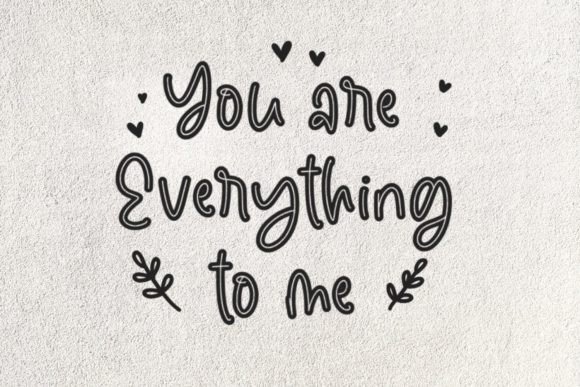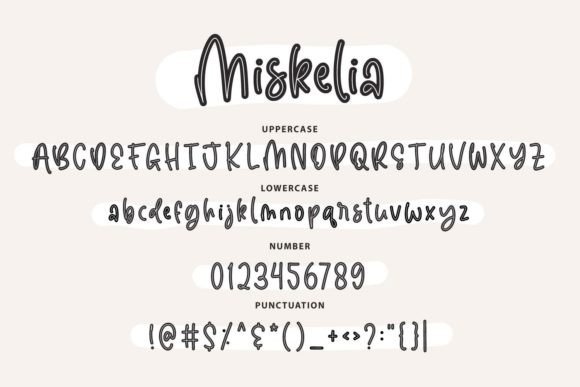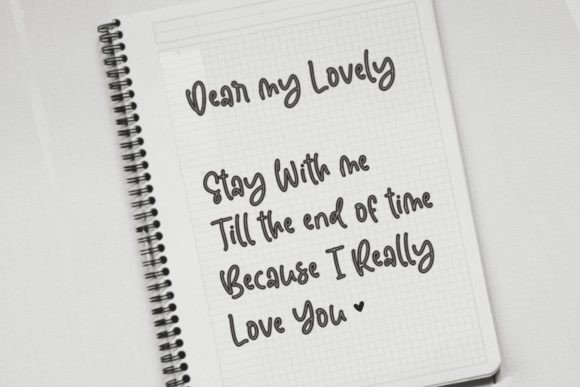
About Miskelia Font
“Miskelia” is not just a font; it’s a quirky and fun handwritten typeface that captures an authentic feel. Fall in love with its unique charm and use it to bring creativity to a variety of design projects, from gorgeous wedding invitations to beautiful stationary art, quotes, t-shirt designs, branding, children’s designs, logos, social media posts, and more.
The quirky appearance of “Miskelia” adds a playful and distinctive touch to your designs. Its handcrafted style exudes authenticity, making it well-suited for projects where you want to convey a sense of creativity and individuality.
The versatility of “Miskelia” shines through in its ability to adapt to different design contexts. Whether you’re creating wedding invitations with a whimsical flair or designing fun and vibrant children’s artwork, this font lends itself to a wide range of creative applications.
Its handwritten nature gives “Miskelia” a personal and organic touch, making it a perfect choice for projects that require a friendly and approachable aesthetic. From logos to social media posts, the font adds a touch of warmth and character to your visual communication.
“Miskelia” invites you to infuse your designs with its quirky and fun personality. Let it be the highlight of your creative projects, bringing joy and authenticity to every piece of artwork, making it a delightful choice for those seeking a playful and unique look in their typography.